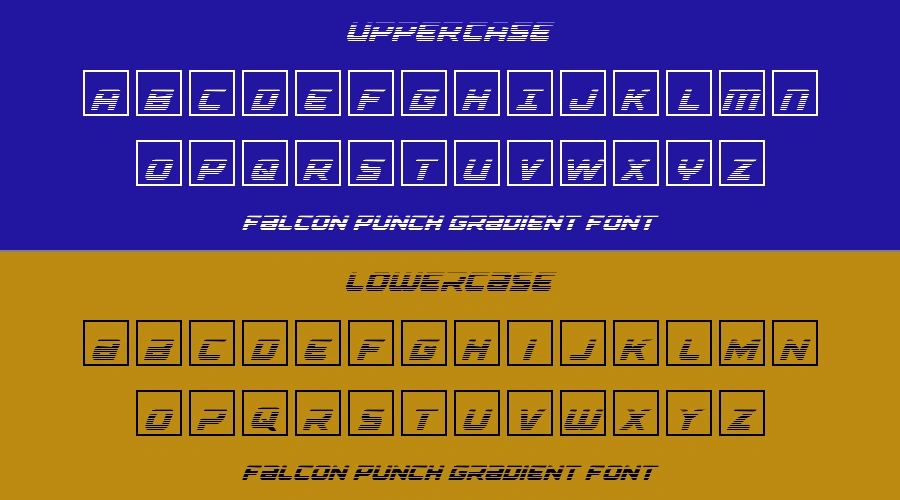
About Falcon Punch Gradient Font
Falcon Punch Gradient Font stands out for its distinctive combination of harmonic curves and consistency. Ideal for motion graphics, it provides the clarity and brand power that professional projects demand. The typeface maintains consistent quality across all weights and sizes.
Key features include refined harmonious shapes and practical decorative sets, enhancing typographic expression. In campaign headers applications, Falcon Punch Gradient Font demonstrates exceptional OCR compatibility. The stroke contrast and industrial acceptance contribute to its distinctive character and professional appeal.